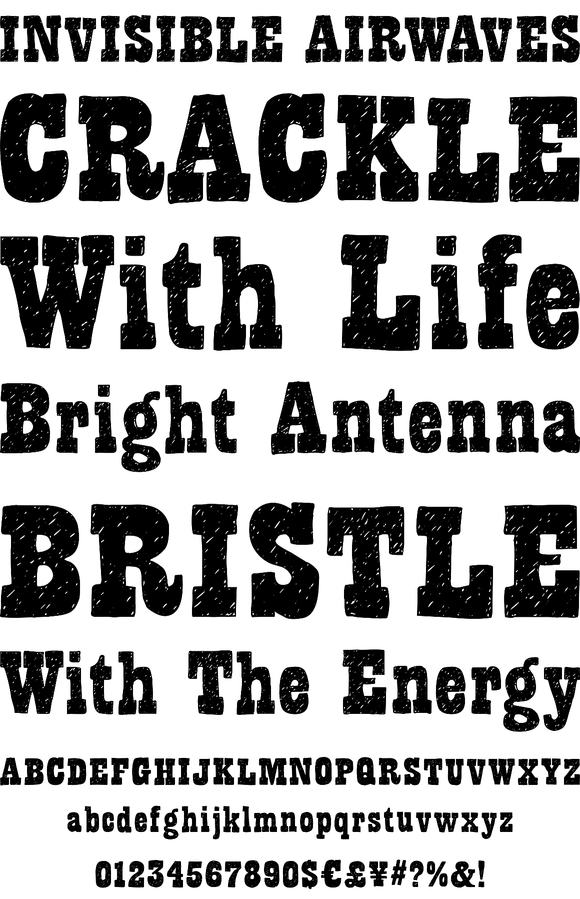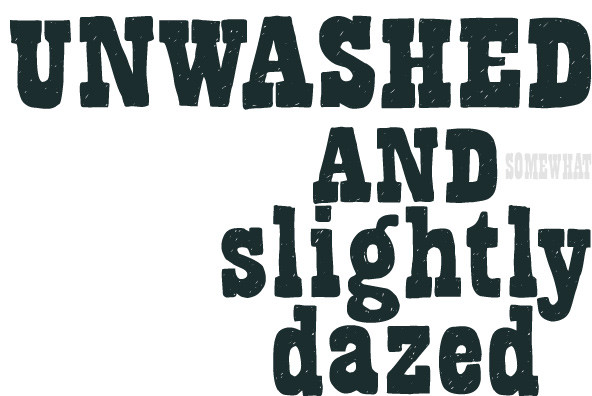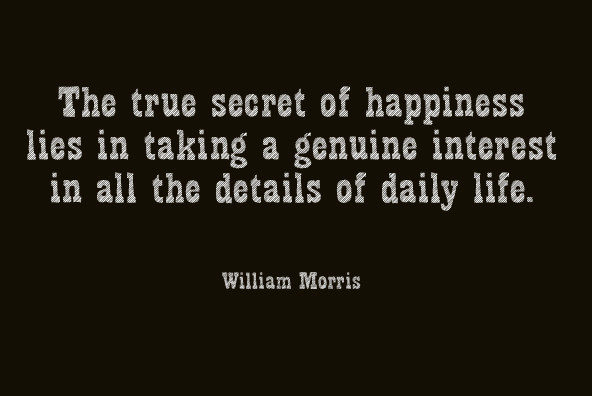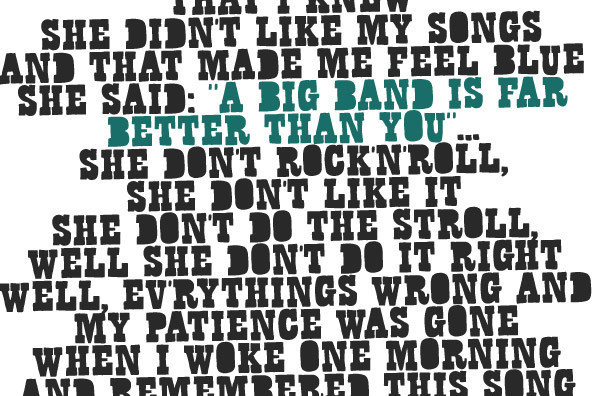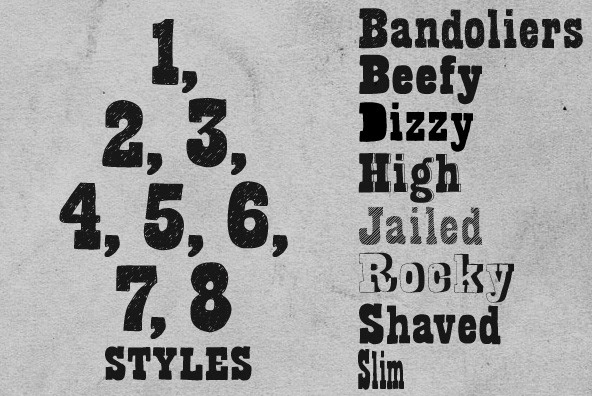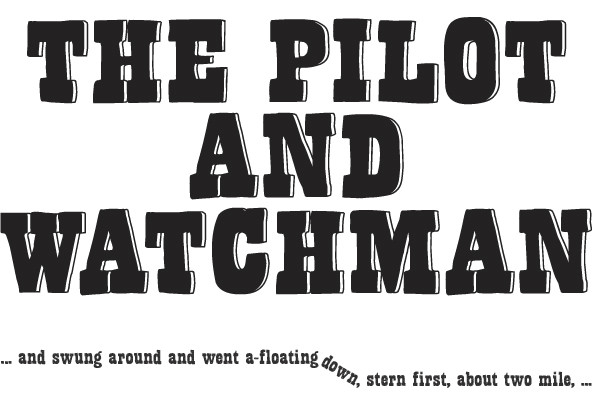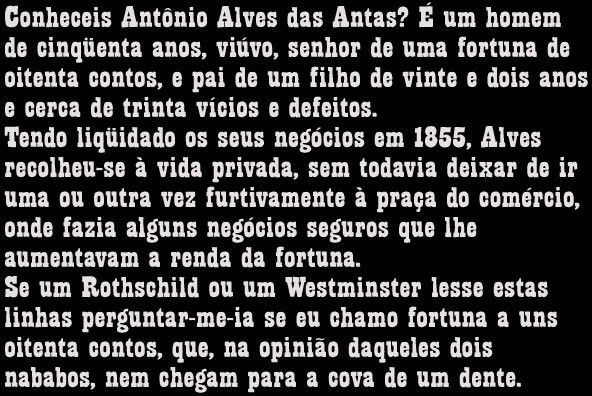
Bandoliers
Foundry: PintassilgoPrints
Decidedly dusty and charmingly rustic, Bandoliers is a hand-drawn family of eight lively loud speaking fonts. Excitement guaranteed!